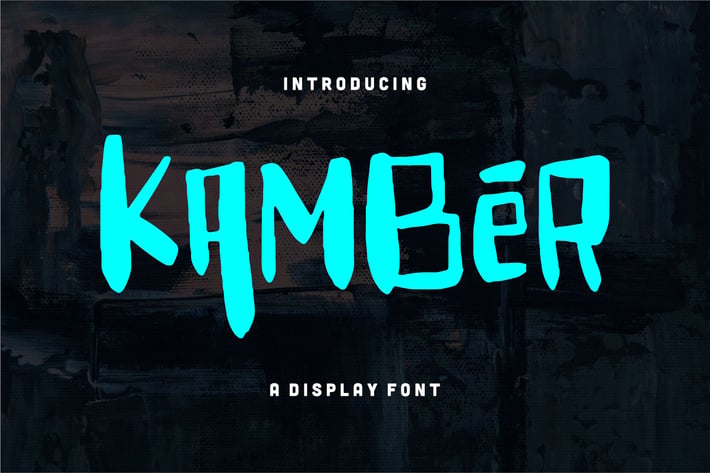
Kamber | A Display Font
Kamber | A Display Font with a calligraphy style, So beautiful on invitation like greeting cards, branding materials, business cards, quotes, posters, and more!